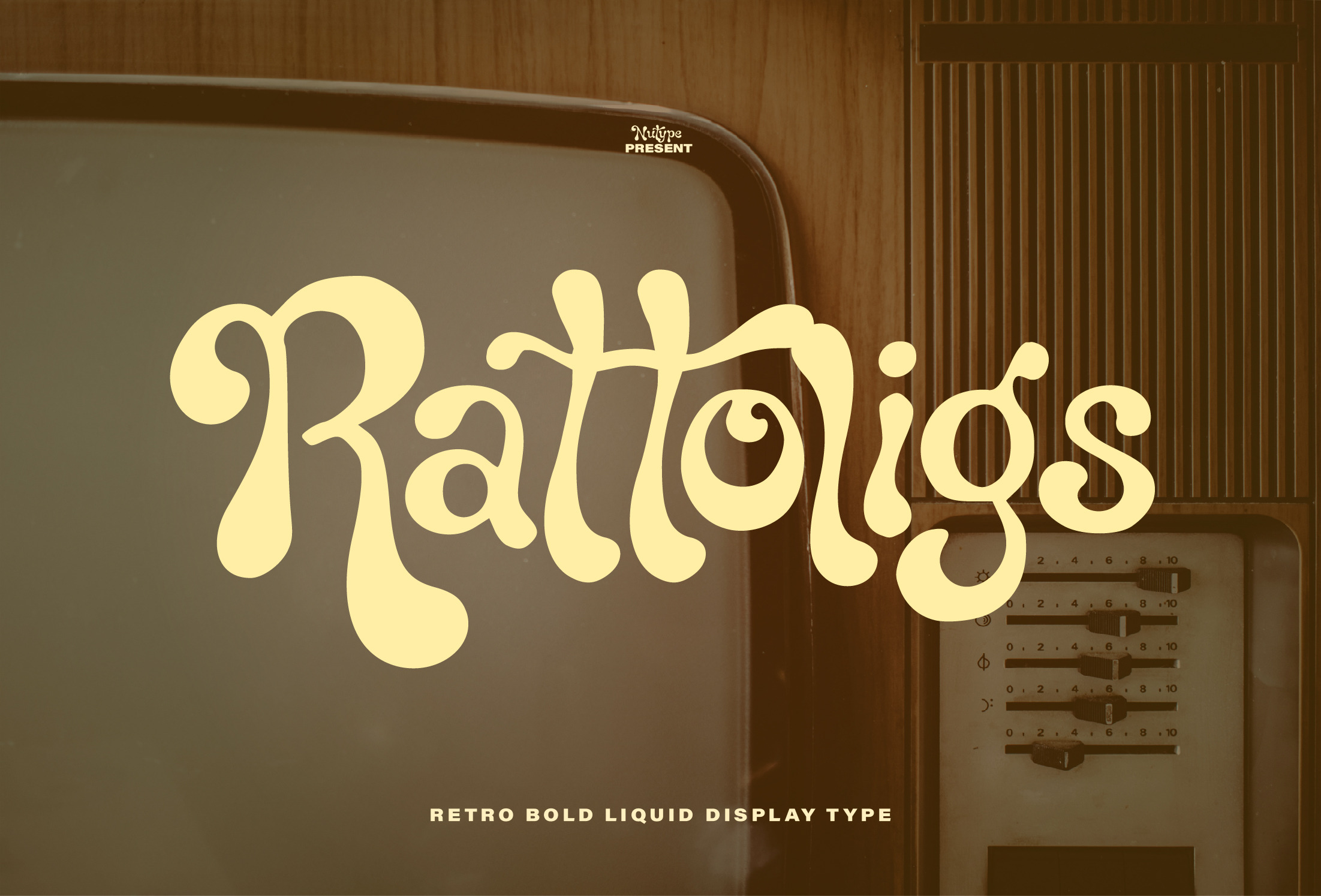
Rattoligs - Retro Dsiplay Font
This font has a retro psychedelic/groovy 70s style. The letterforms are fluid, flowing, and not rigid. They appear as if the letters are "melting" or wavy, giving a dynamic and artistic feel. FEATURES:
- Capital Letters, Lowercase Letters, Foreign Letter Support, Numbers, and Punctuation